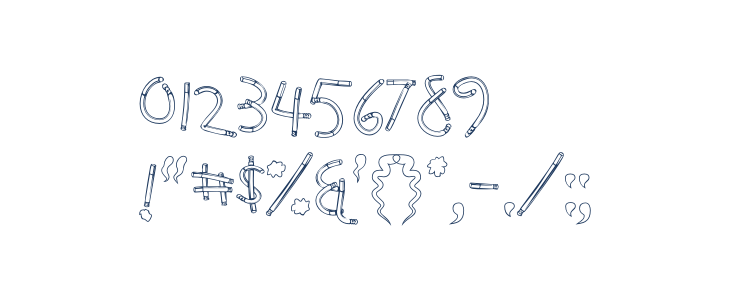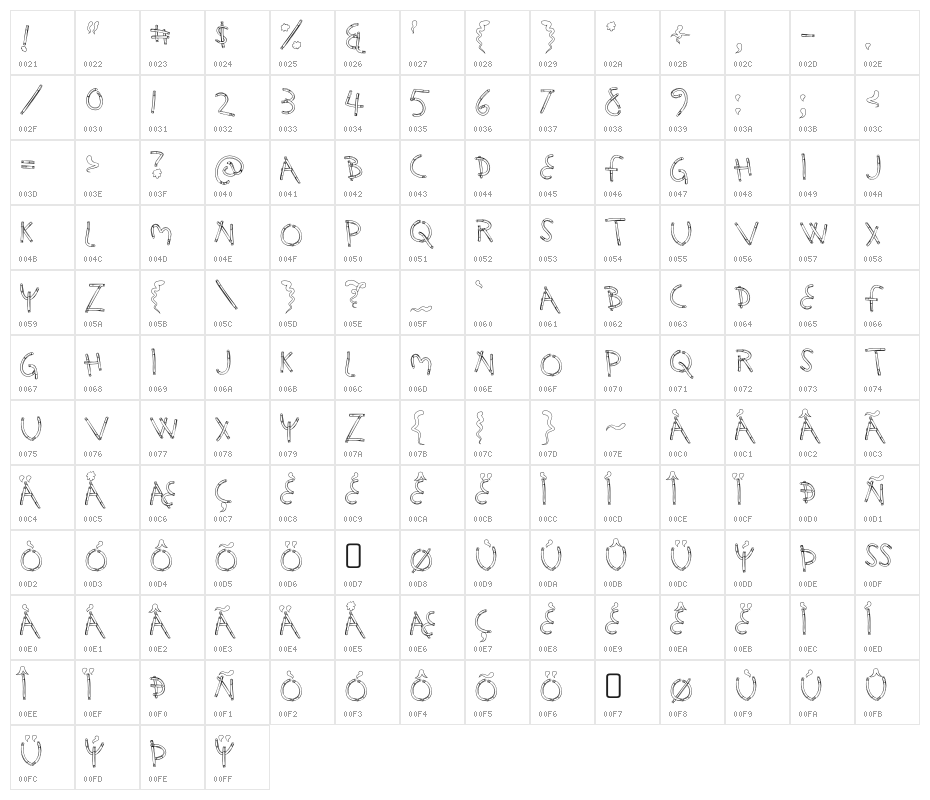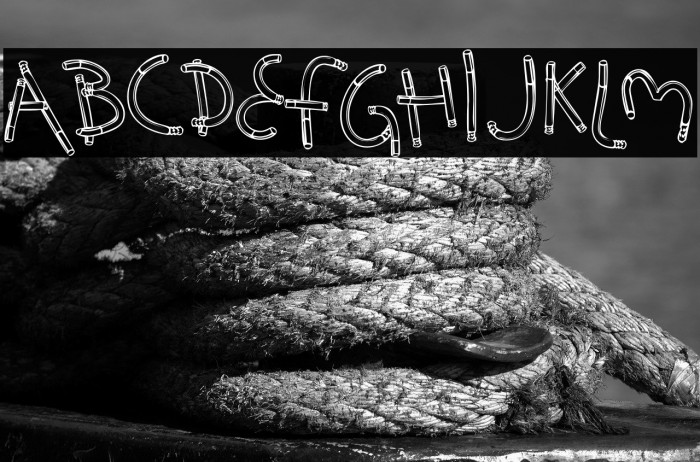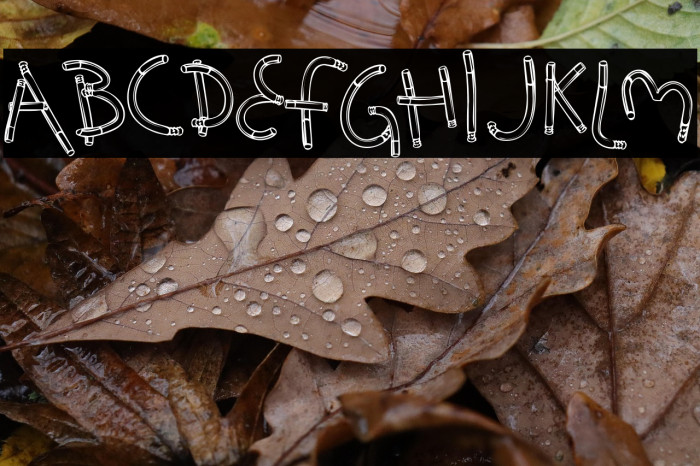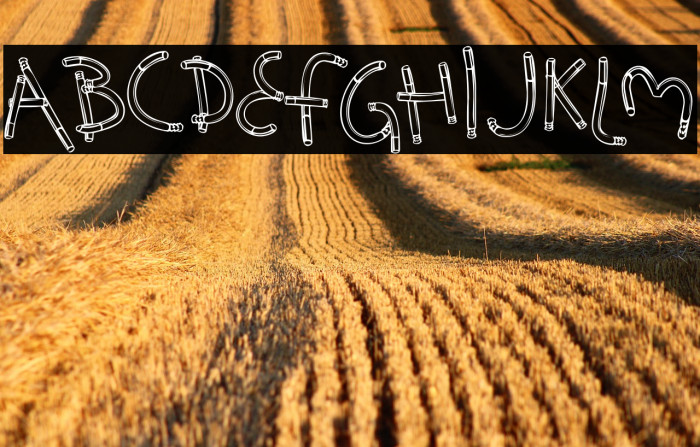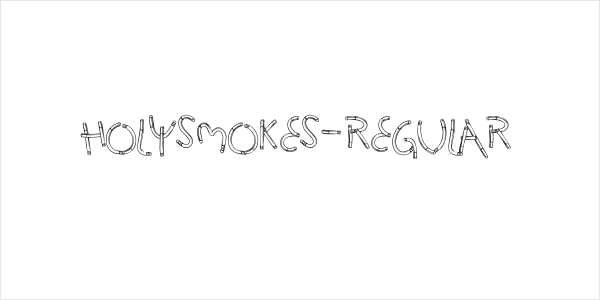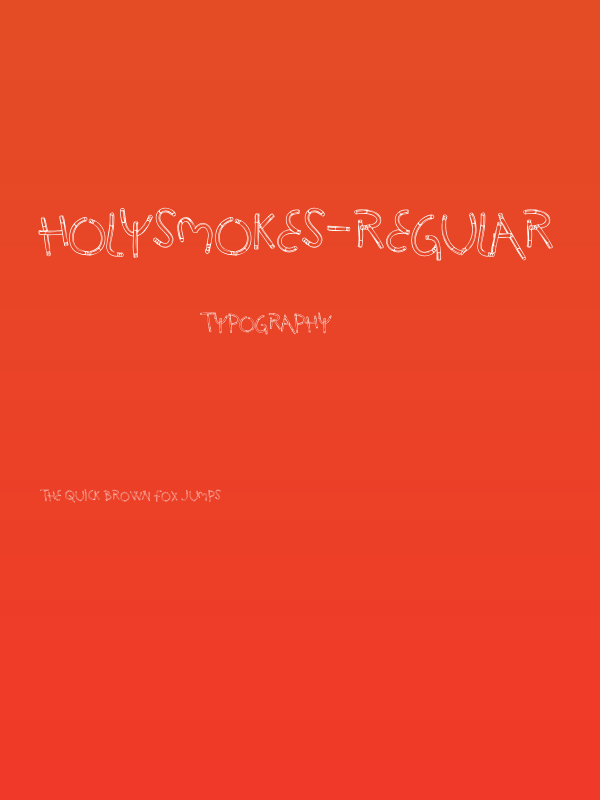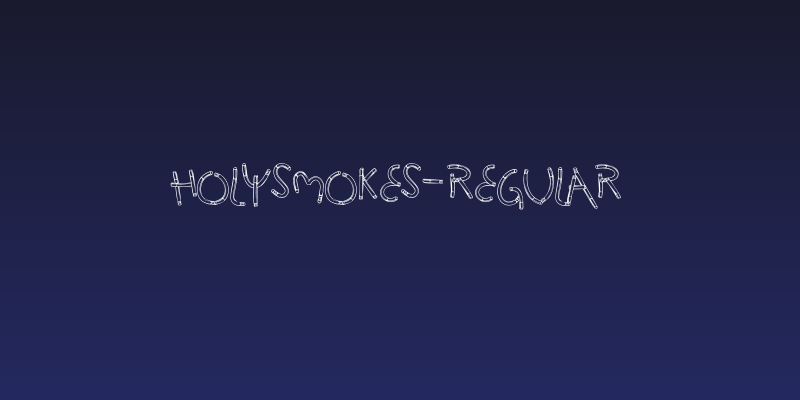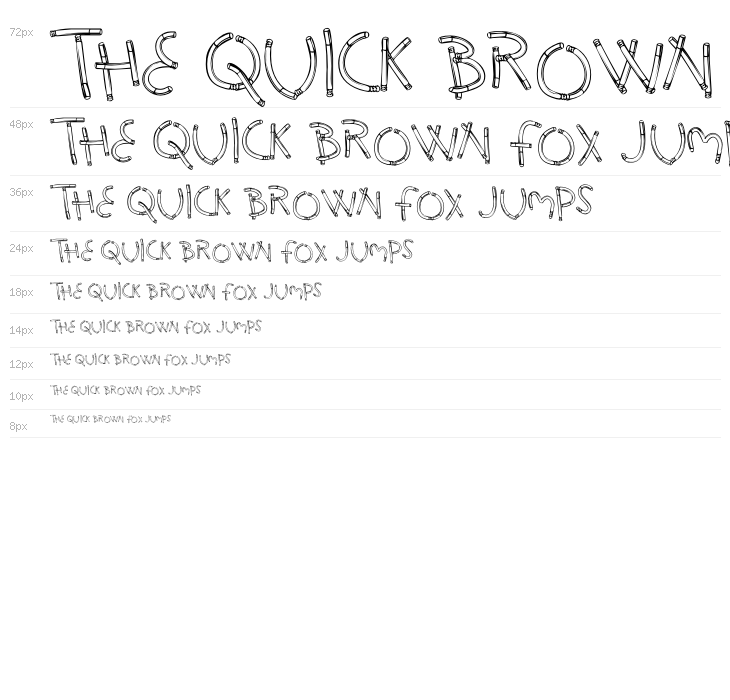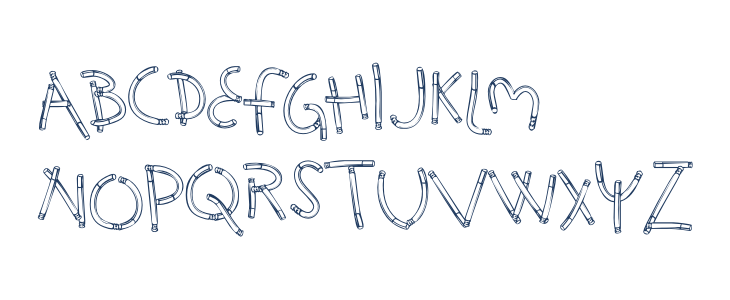
HolySmokes-Regular Font
HolySmokes-Regular Description
This playful and whimsical font features characters designed to resemble smoking pipes, giving it a unique and humorous appearance. Each letter and number is crafted with a combination of curves and straight lines, mimicking the shape and structure of a pipe. The font includes both uppercase and lowercase letters, as well as numbers and a selection of special characters. The overall design is decorative and eye-catching, making it suitable for projects that require a fun and unconventional style. The strokes are consistent in width, providing a balanced and cohesive look across all characters.
| Proposed Projects | Ideal for novelty posters, playful branding, children's book covers, and creative event invitations. |